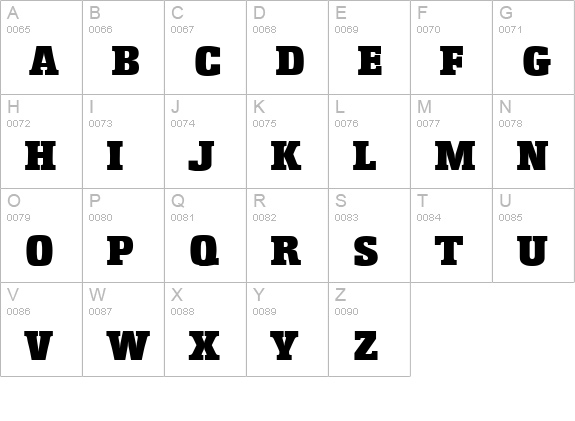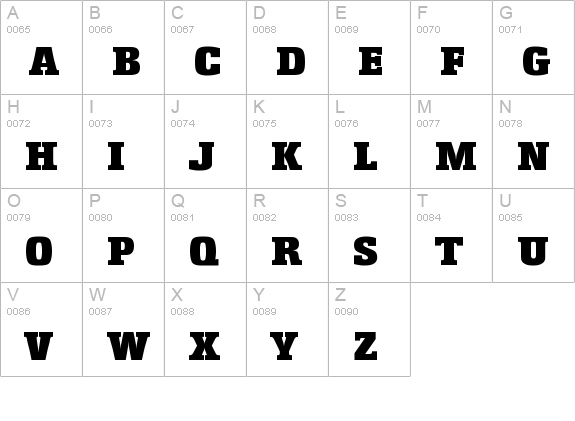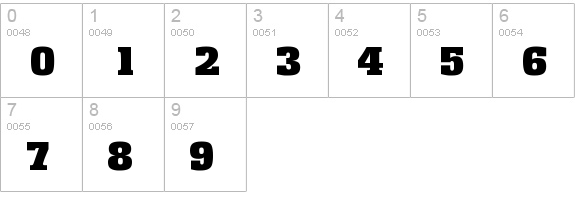
EnschedeSerial-Black-Regular is a maximum-weight, dramatic variant in the EnschedeSerial typeface family \xE2\x80\x94 well suited to maximum-impact headlines, posters, and packaging.
EnschedeSerial-Black-Regular is a modern and sleek font that exudes sophistication and elegance. With its bold and eye-catching design, this typeface is perfect for making a statement in your design projects. The sharp and clean lines of EnschedeSerial-Black-Regular make it ideal for headlines, posters, and branding materials. The best part about EnschedeSerial-Black-Regular is that it is available for free download at FontsMarket.com. This means that you can easily access this high-quality font without any cost, making it a valuable addition to your font library. Whether you are a designer looking to elevate your projects or a creative individual in need of a stylish font, EnschedeSerial-Black-Regular is a fantastic choice that won't break the bank. Download it today and enhance your designs with this versatile and striking typeface.